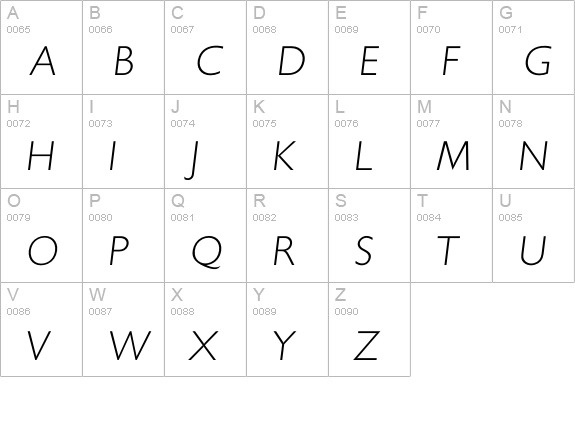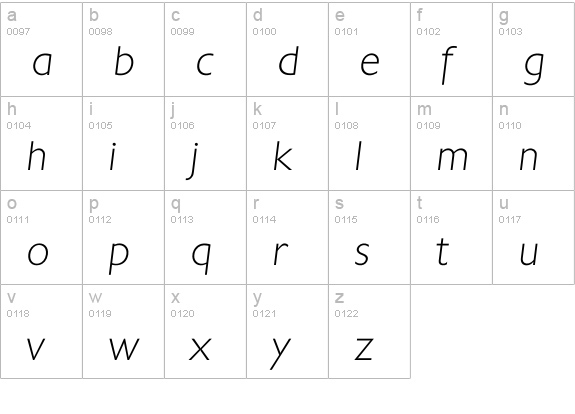
Ichantilly Xlight Font Details
Ichantilly Xlight font is a stunning and elegant typeface that exudes a sense of sophistication and grace. With its delicate and slender letterforms, this font is perfect for adding a touch of elegance to any design project. The Ichantilly Xlight font features thin strokes and gracefully curved terminals, giving it a refined and delicate appearance. Its clean and minimalist design allows it to blend seamlessly with various design styles, making it versatile and suitable for a wide range of applications. One of the best things about the Ichantilly Xlight font is that it is free. Yes, you read that right - this exquisite font can be downloaded for free at FontsMarket.com. Whether you are a professional designer or a hobbyist looking to enhance your creative projects, this font is accessible to everyone without any cost. The Ichantilly Xlight font can be used in various design projects such as logos, branding, invitations, headlines, and more. Its timeless and classic appeal adds a touch of sophistication to any design, making it stand out from the crowd. With its freely available download at FontsMarket.com, the Ichantilly Xlight font offers a wonderful opportunity for designers to experiment and explore their creativity without any financial burden. So why wait? Download the Ichantilly Xlight font today and elevate your designs to new heights of elegance and beauty.